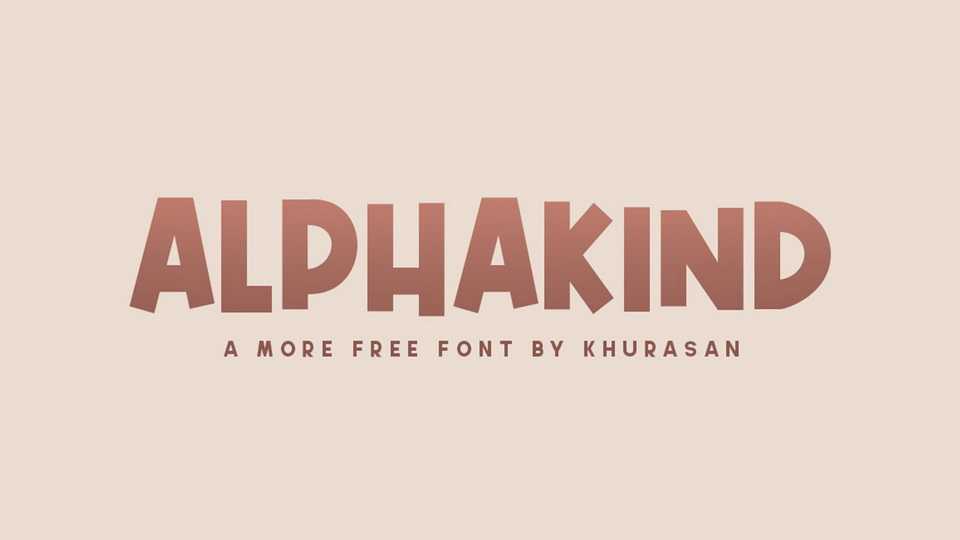
Download Alphakind font, a playful display typeface that is perfect for any fun quirky design work. Alphakind font can be used for anything such as t-shirt designs, phone cases, greeting cards, invitations, mugs and so more.